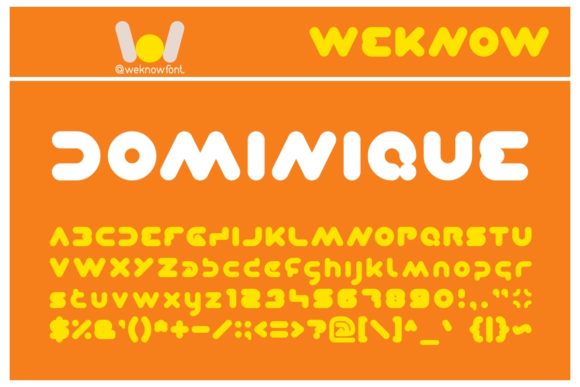
Introducing Dominique Font: The Ultimate Display Font for Bold and Sophisticated Designs
In the world of typography, a font can make or break a design. When it comes to creating a lasting impression, designers and crafters need a font that exudes confidence, sophistication, and creativity. This is where Dominique Font comes in – a masterfully designed display font that is sure to elevate your designs to the next level. With its chunky and extended characters, Dominique looks bold, yet refined, making it perfect for logos, branding, packaging design, and more.
The Design Behind Dominique Font
Dominique Font is a carefully crafted display font that boasts a unique and striking appearance. Its chunky and extended characters give it a bold and eye-catching quality, while its sophisticated lines and curves add a touch of elegance. This font is designed to make a statement, and its versatility makes it suitable for a wide range of design applications.
Key Features of Dominique Font
- Bold and Sophisticated: Dominique Font features a bold and sophisticated design that is sure to grab attention.
- Chunky and Extended Characters: The font’s chunky and extended characters make it perfect for headlines, logos, and other display purposes.
- Highly Versatile: Dominique Font can be used in a variety of design applications, including logos, branding, packaging design, and more.
- Easily Readable: Despite its bold design, Dominique Font is easily readable, making it perfect for use in a range of contexts.
Uses for Dominique Font
With its bold and sophisticated design, Dominique Font is perfect for a wide range of design applications. Here are just a few examples:
- Logos and Branding: Dominique Font is perfect for creating bold and eye-catching logos that make a lasting impression.
- Packaging Design: The font’s chunky and extended characters make it ideal for use in packaging design, where it can help products stand out on store shelves.
- Advertising and Marketing: Dominique Font is perfect for use in advertising and marketing materials, where its bold design can help grab attention and drive engagement.
- Graphic Design: The font’s versatility makes it suitable for use in a range of graphic design applications, from posters and flyers to brochures and more.
Why Choose Dominique Font?
With so many fonts to choose from, why should designers and crafters choose Dominique Font? Here are just a few reasons:
- Unique Design: Dominique Font features a unique and striking design that is sure to set your designs apart.
- High-Quality: The font is carefully crafted to ensure high-quality and consistency, making it perfect for professional designs.
- Versatile: The font’s versatility makes it suitable for use in a wide range of design applications.
In conclusion, Dominique Font is a masterfully designed display font that is sure to elevate your designs to the next level. With its bold and sophisticated design, chunky and extended characters, and versatility, it’s perfect for a wide range of design applications. Whether you’re a designer, crafter, or simply someone looking to add a touch of creativity to your projects, Dominique Font is a true must-have.